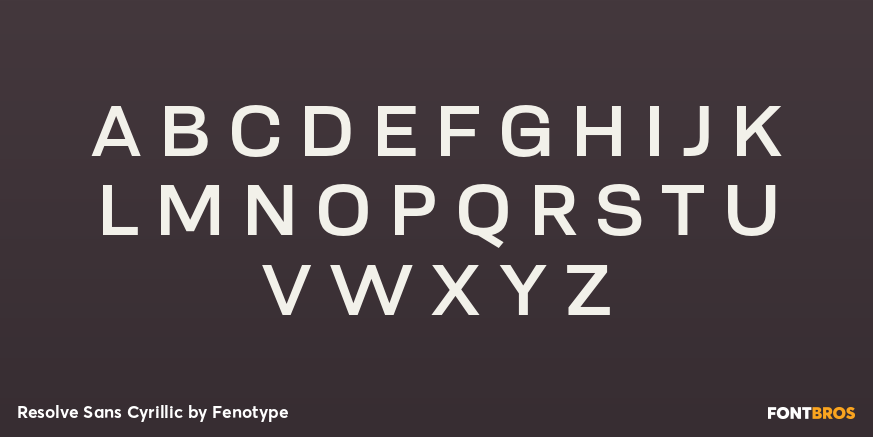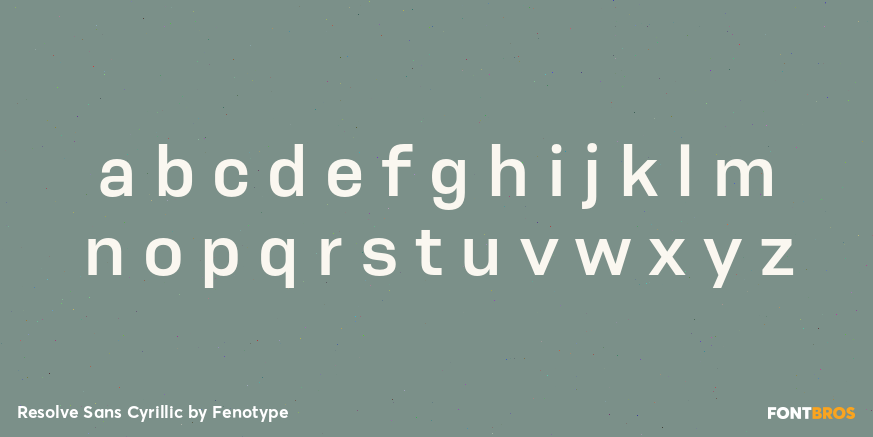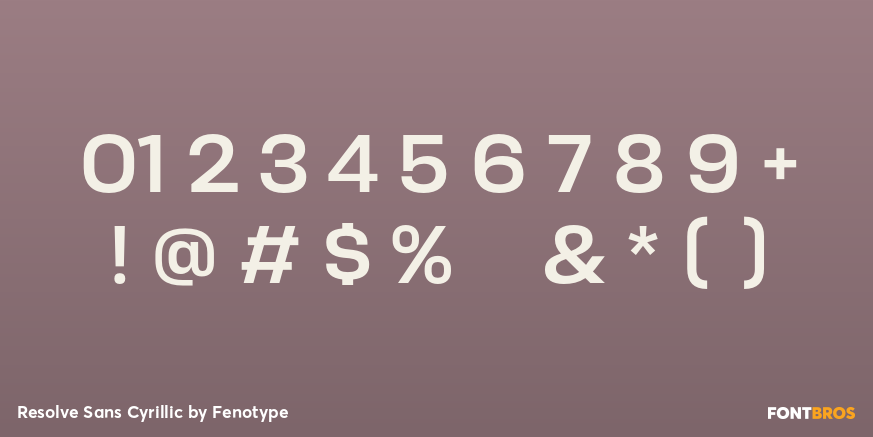
Resolve Sans Cyrillic
Font Family by Fenotype
Buy NowOne font family to cover it all. Resolve Sans Cyrillic is an extensive super family of 124 fonts: from compressed to extended, thin to black. Resolve Sans Cyrillic perfectly balances a universally neutral appeal with a distinct level of sophistication. Effortless to adapt to any contexts of use, Resolve Sans Cyrillic is both a workhorse and a display font with impact and flair. As expected, all Resolve Sans Cyrillic fonts come with clever Open Type features such as built-in small capitals and multiple numeral styles.